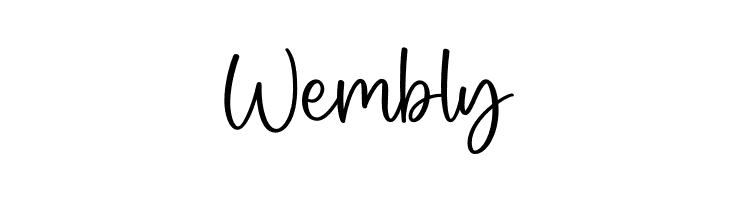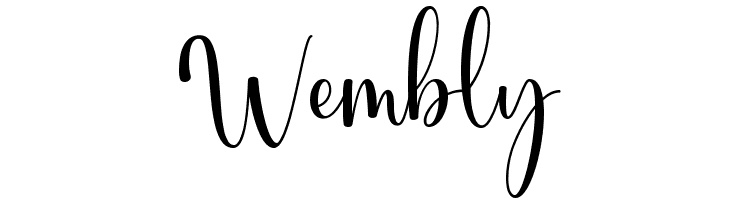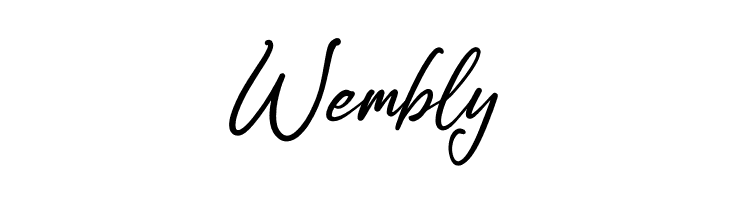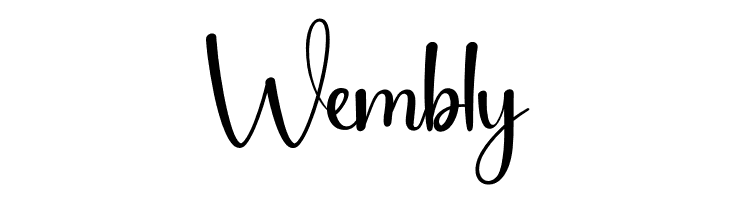
Casual handwritten script with rounded, flowing strokes.
Elegant, thin handwritten script with tall, flowing forms.
Elegant, handwritten script with flowing, connected strokes.
A decorative, high-contrast script font with elegant swashes.
A stylish and fluid handwritten script font with elegant uppercase flourishes.
Whimsical handwritten script with tall uppercase and bold lowercase letters.
Delicate, casual handwritten script with smooth, flowing strokes.